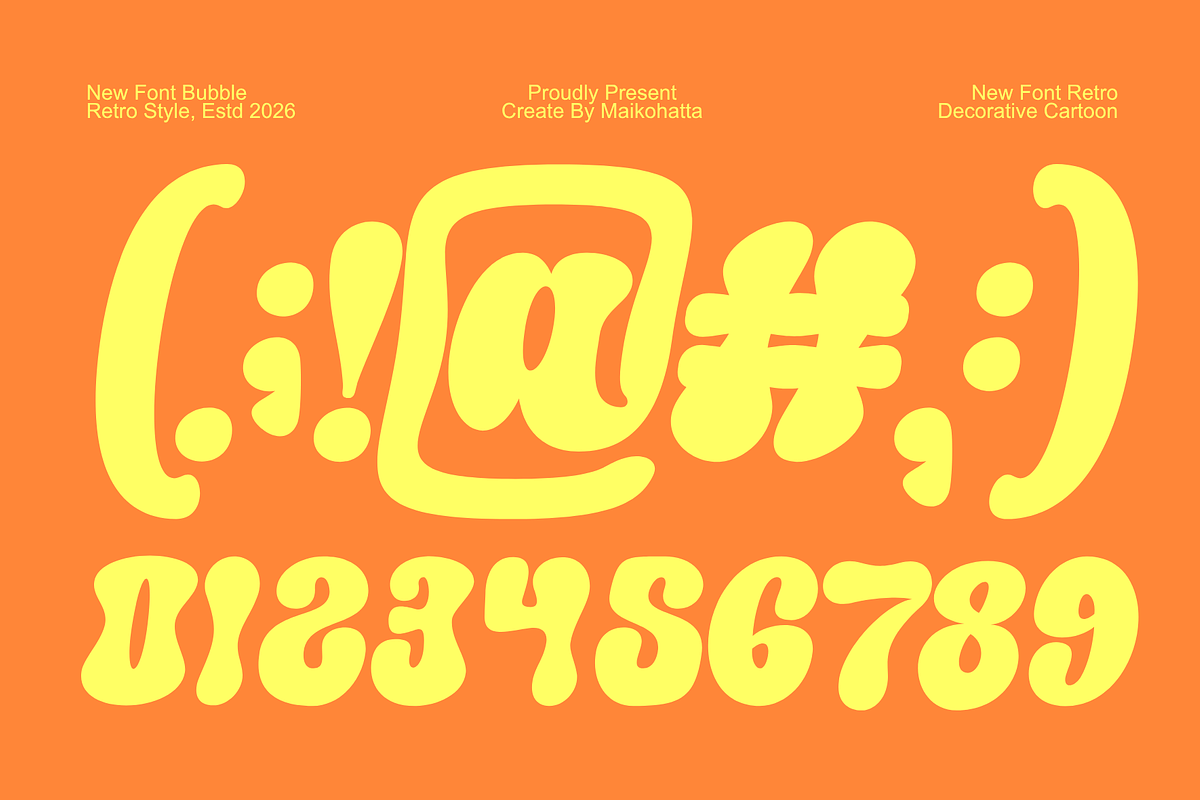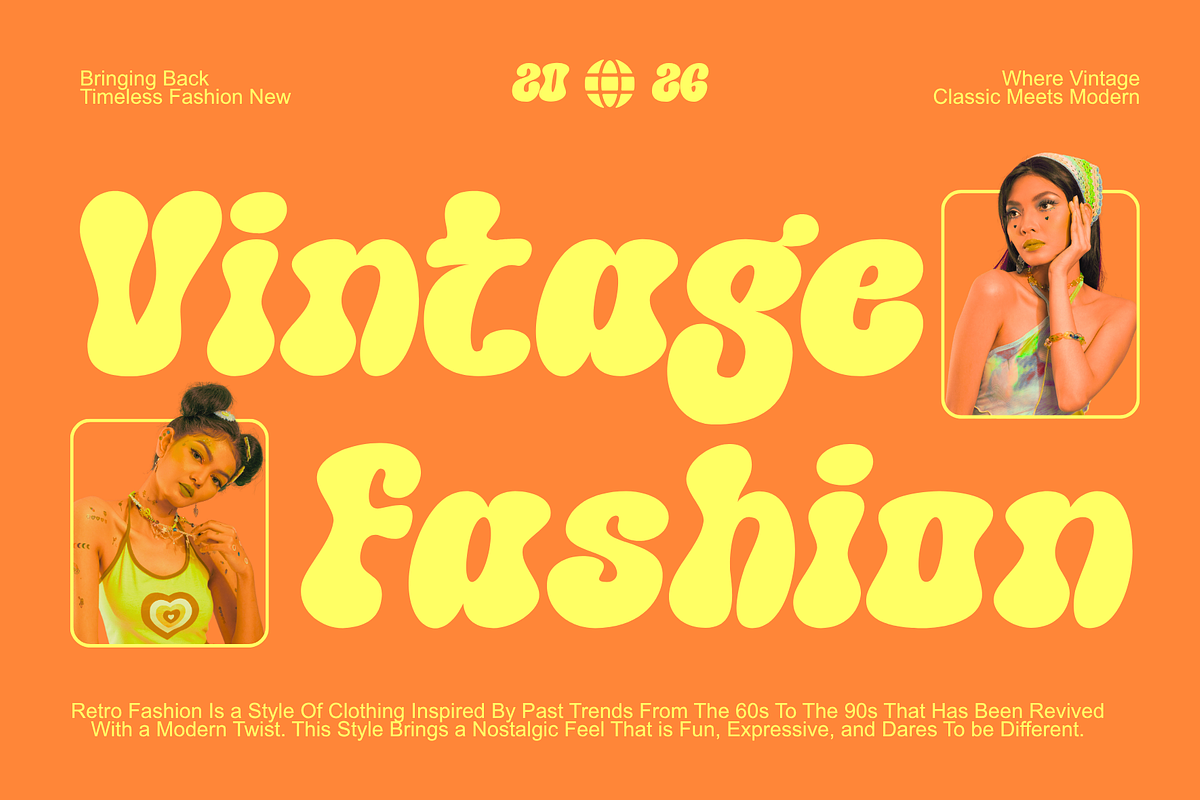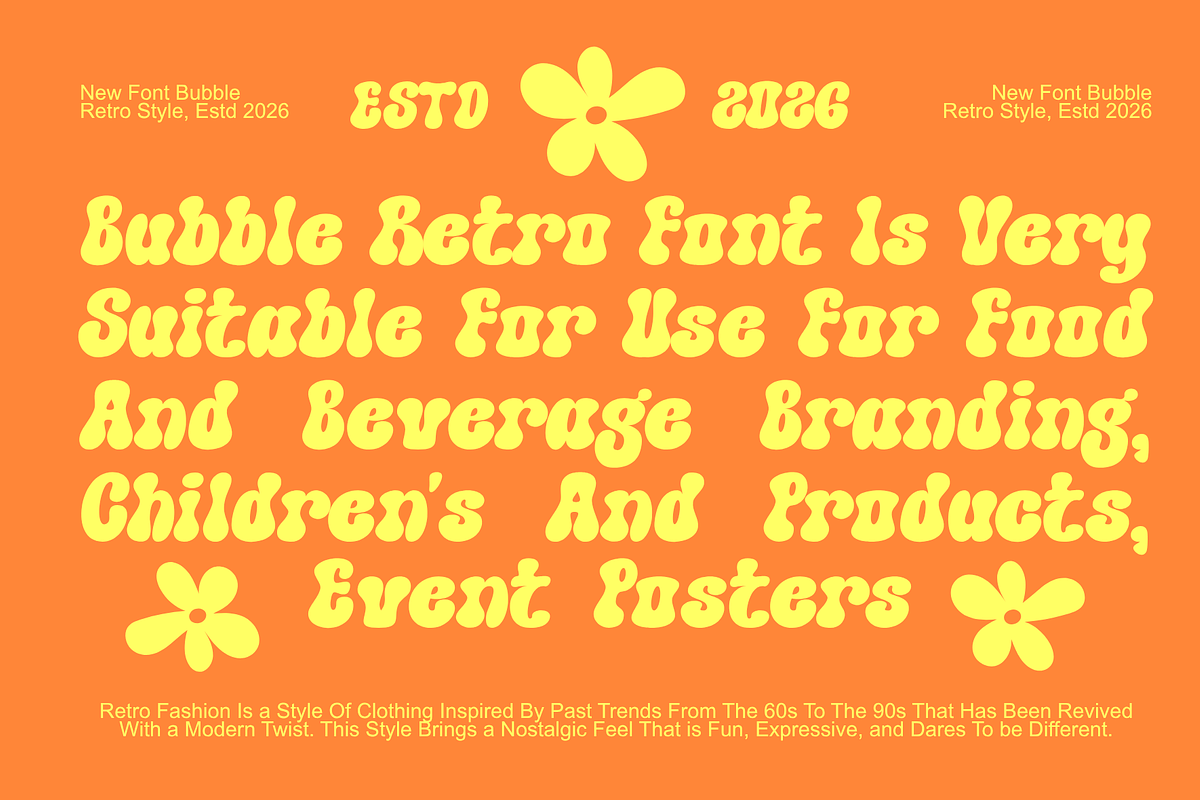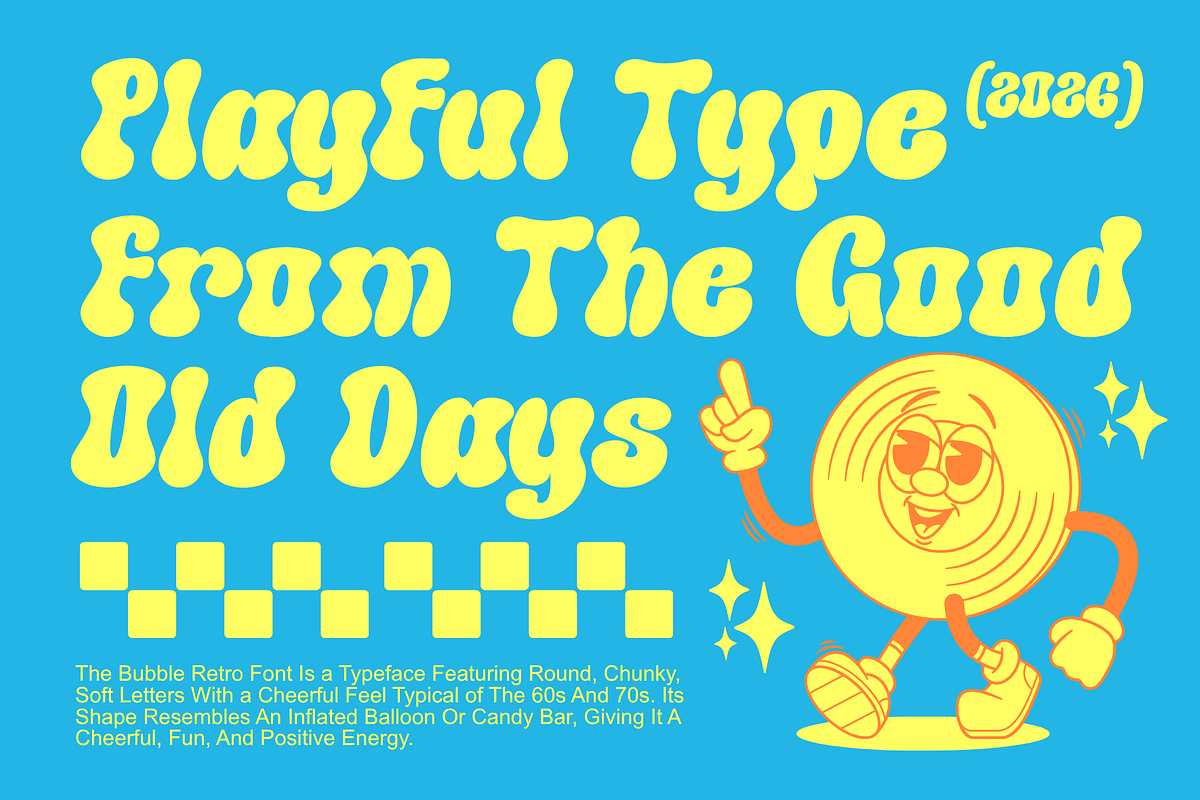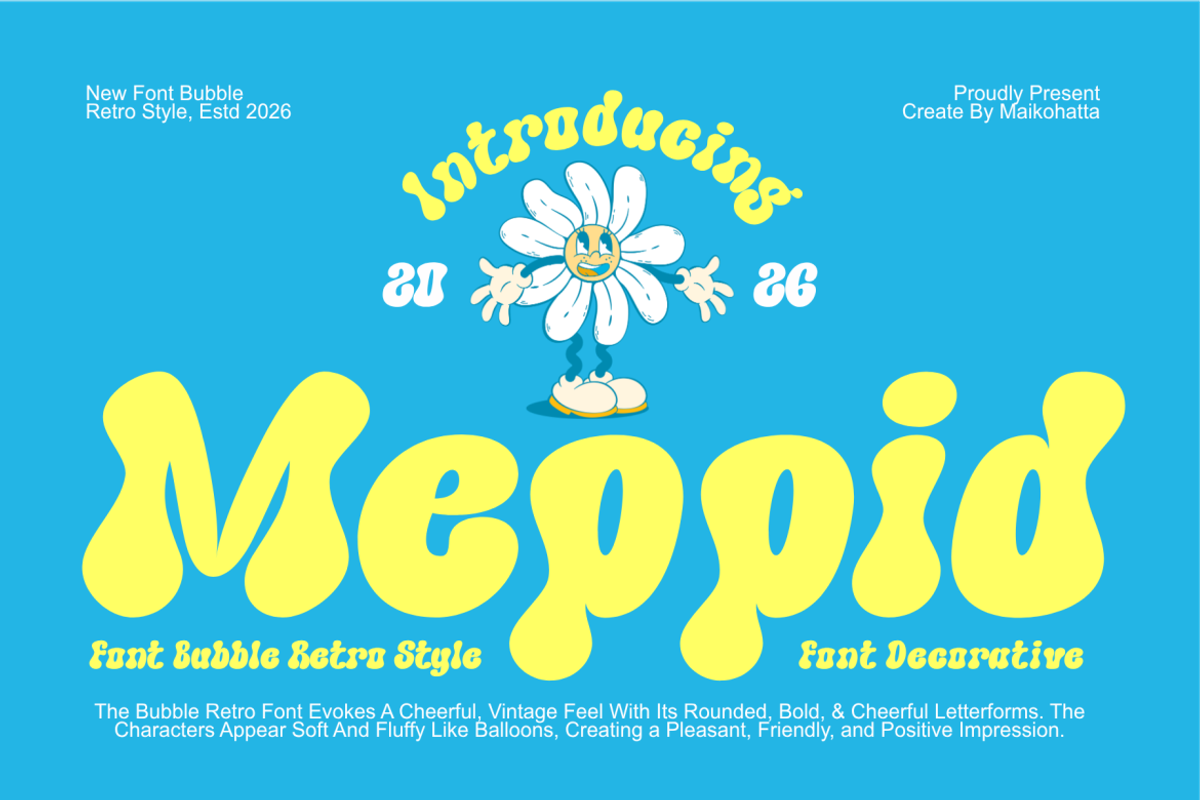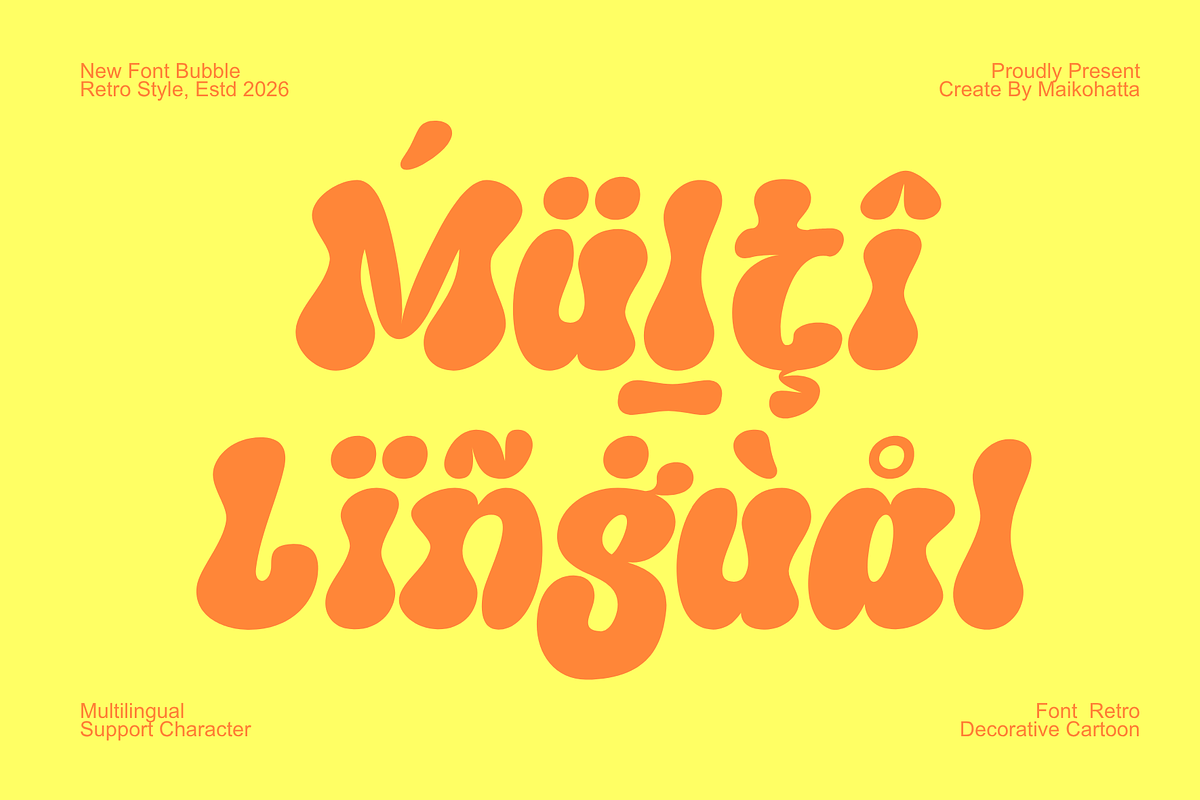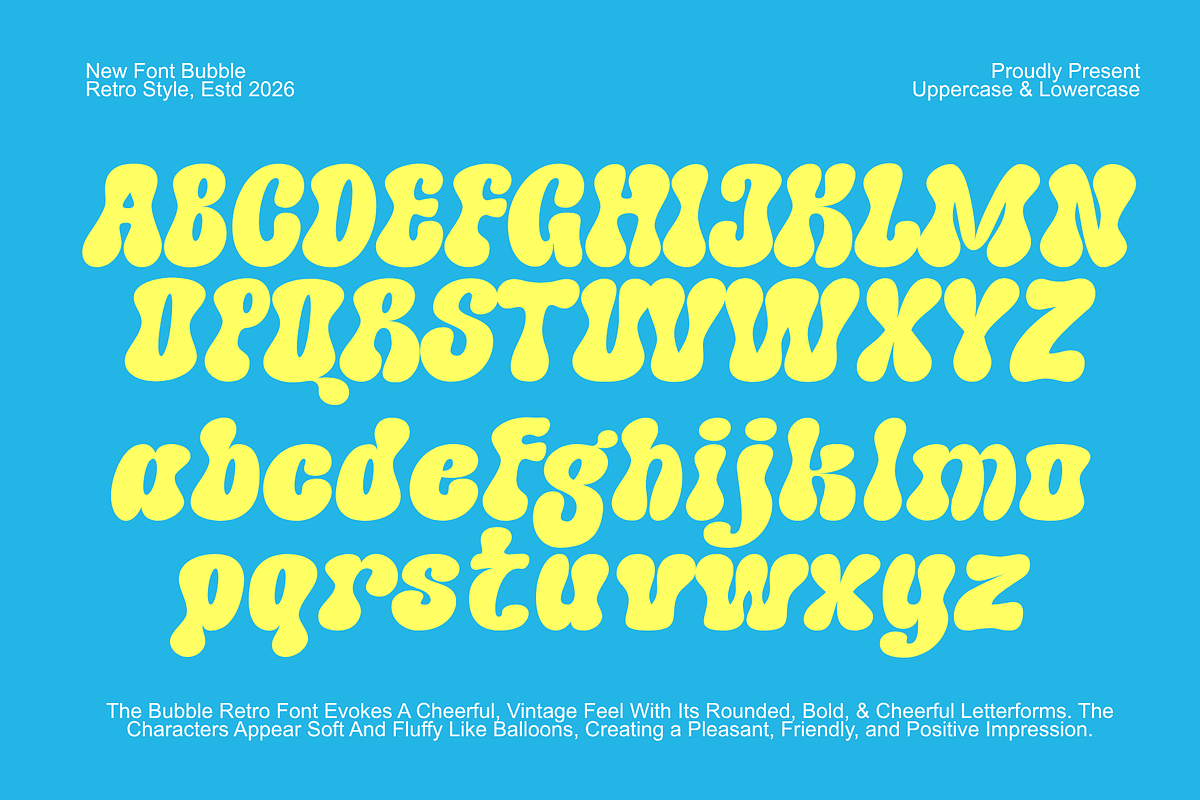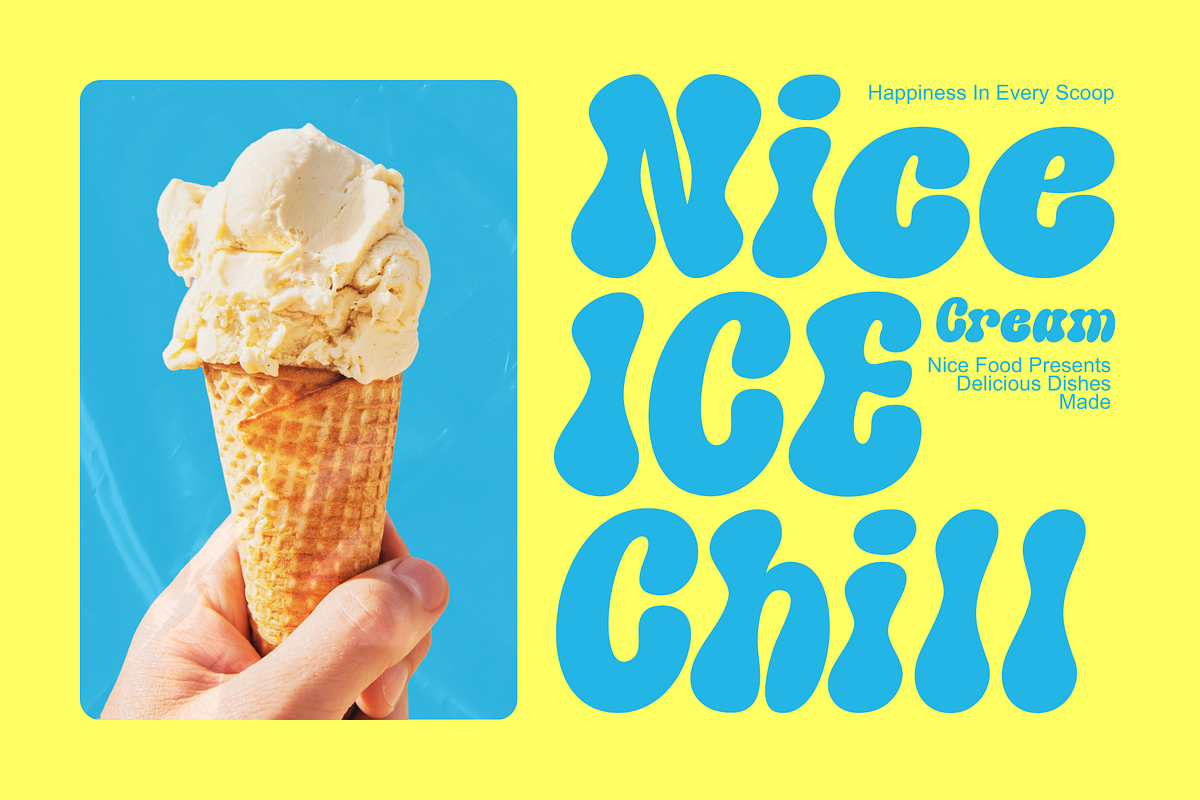
Meppid – Playful Retro Bubble Font
Meppid is a cheerful and playful retro bubble font that brings a joyful vintage vibe to your designs. Inspired by groovy 70s aesthetics, this typeface features soft, rounded, and bold letterforms that resemble fluffy bubbles, creating a fun and friendly visual appeal.
Perfect for a wide range of creative projects, Meppid works beautifully for branding, logo design, posters, packaging, kids-themed designs, social media graphics, and retro-inspired artwork. Its unique and decorative style makes it ideal for projects that aim to stand out with a warm, nostalgic, and positive impression.